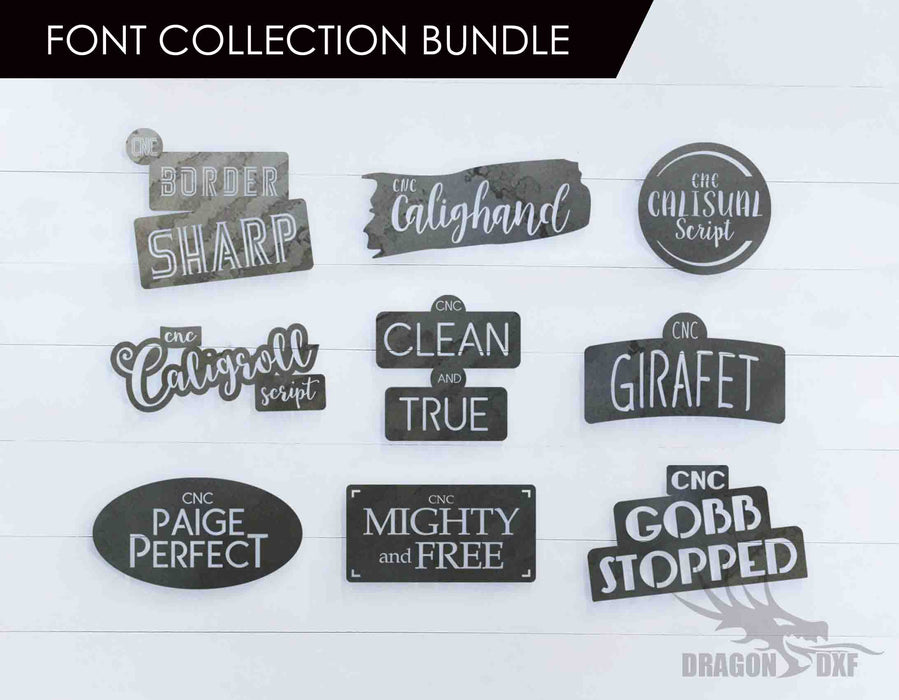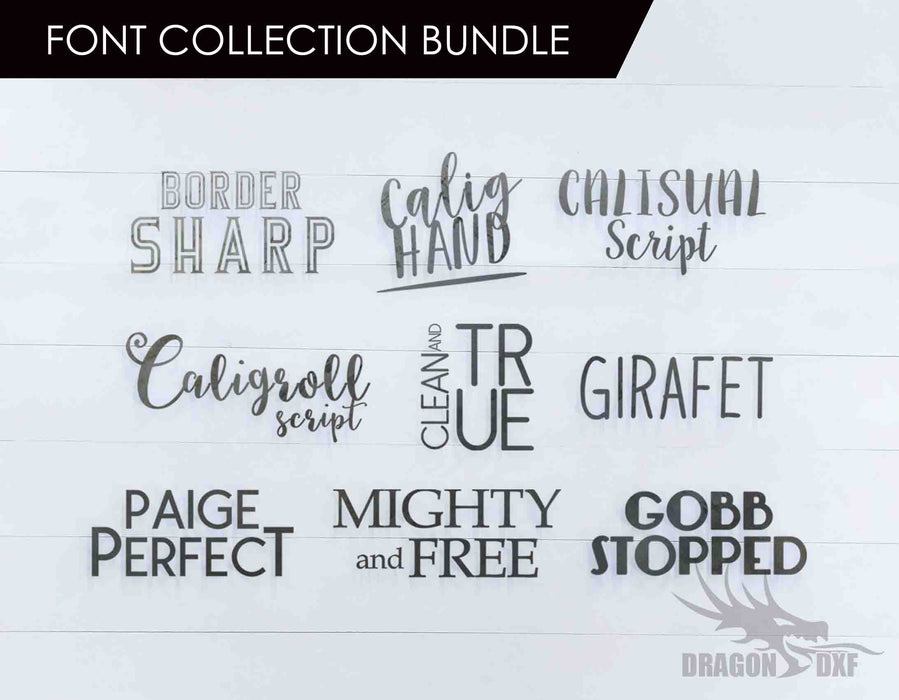
CNC Font Collection Bundle - Plasma Laser DXF Cut File
CNC Font Collection Bundle is made to use with CNC design software. You will not have to spend time editing each letter ever again with this font because this font has pre-designed cuts so there are no drop outs! A dream come true and until now, you didn't know they existed outside of standard stencil fonts.